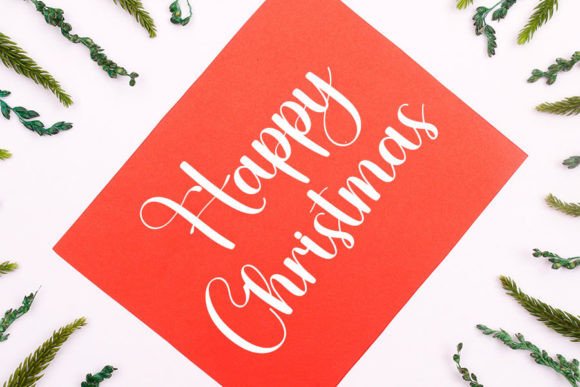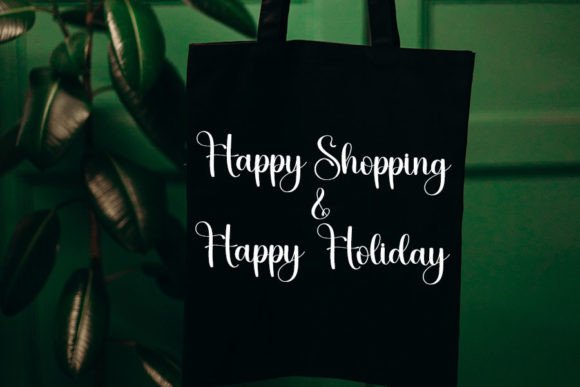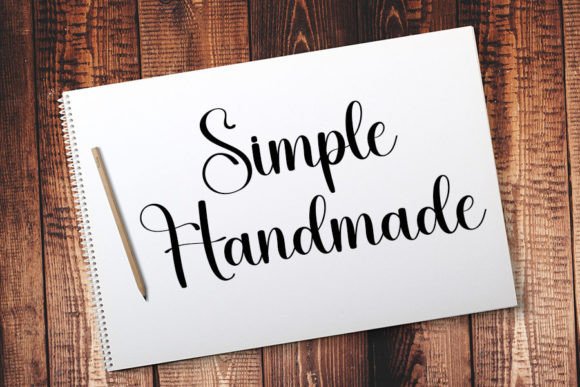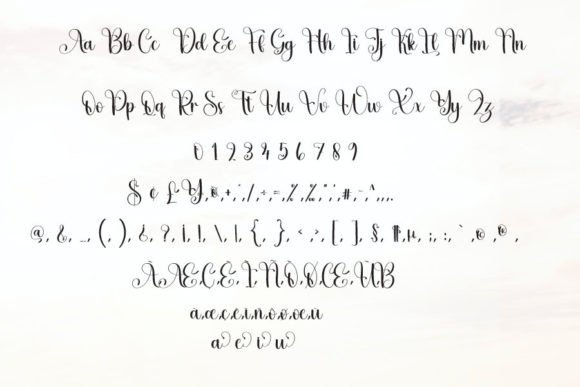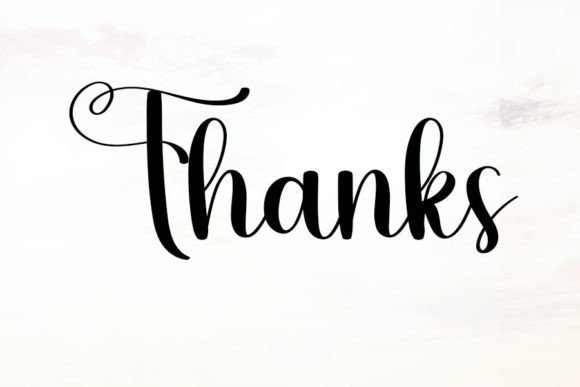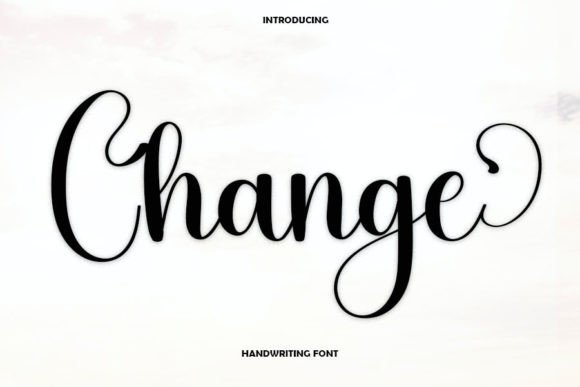
Discover the Joy of Handwritten Design with Change Font
Remember that moment when you were brainstorming a creative project and suddenly, a spark of inspiration hit you? You felt like your ideas were flowing effortlessly, and you couldn’t wait to bring them to life. This is exactly what happens when you find the perfect font to match your vision, and for many designers, that font is Change Font.
| 📌 Product Name | Change Font |
| 👤 Author | Ganden Letter |
Change Font is a delightful, handwritten font that’s perfect for adding a personal touch to your crafts, digital designs, presentations, and greeting cards. With its playful and friendly style, it’s no wonder that many designers have fallen in love with this versatile font. Whether you’re a seasoned pro or just starting out, Change Font is a valuable addition to your design toolkit.